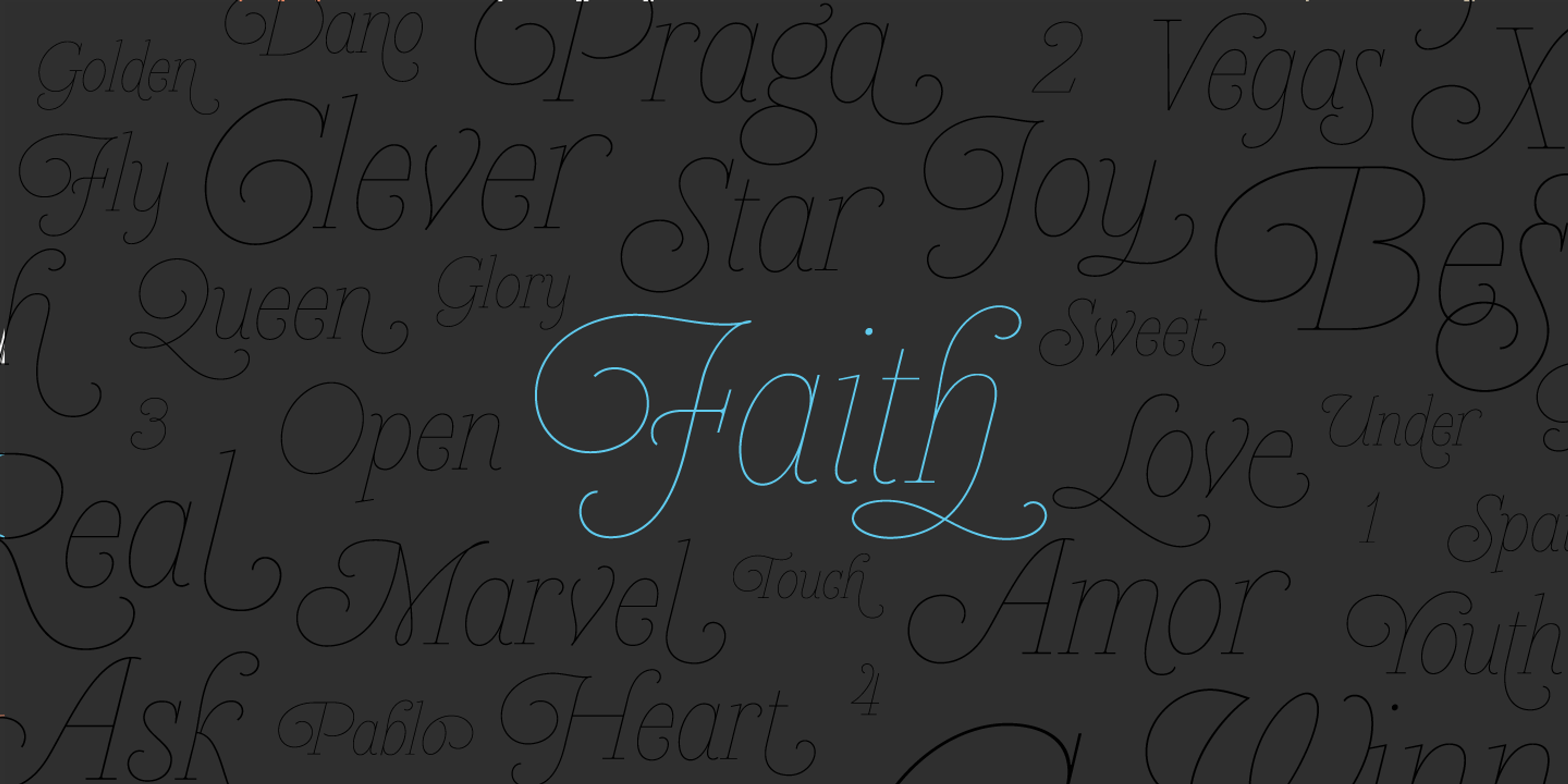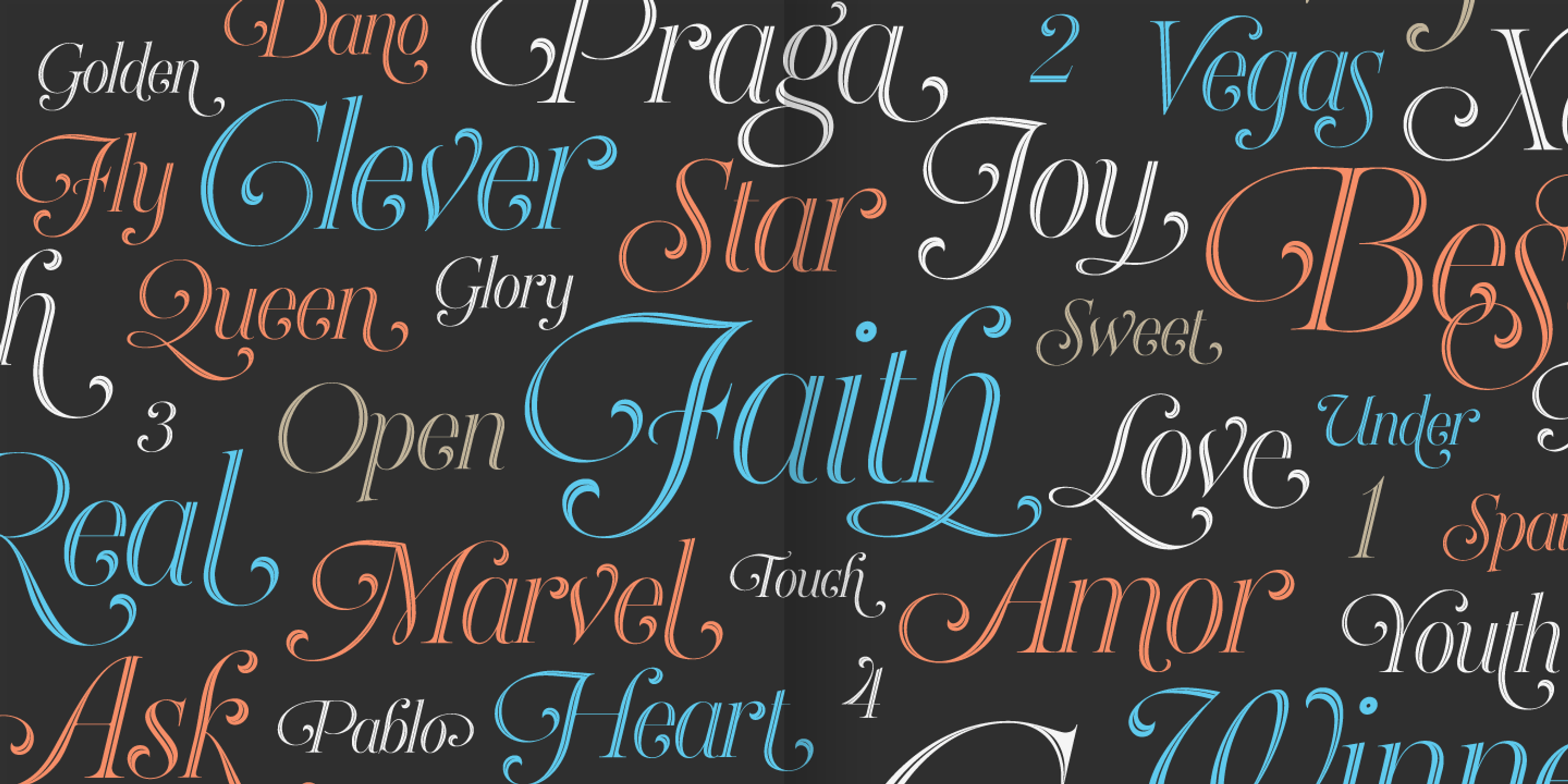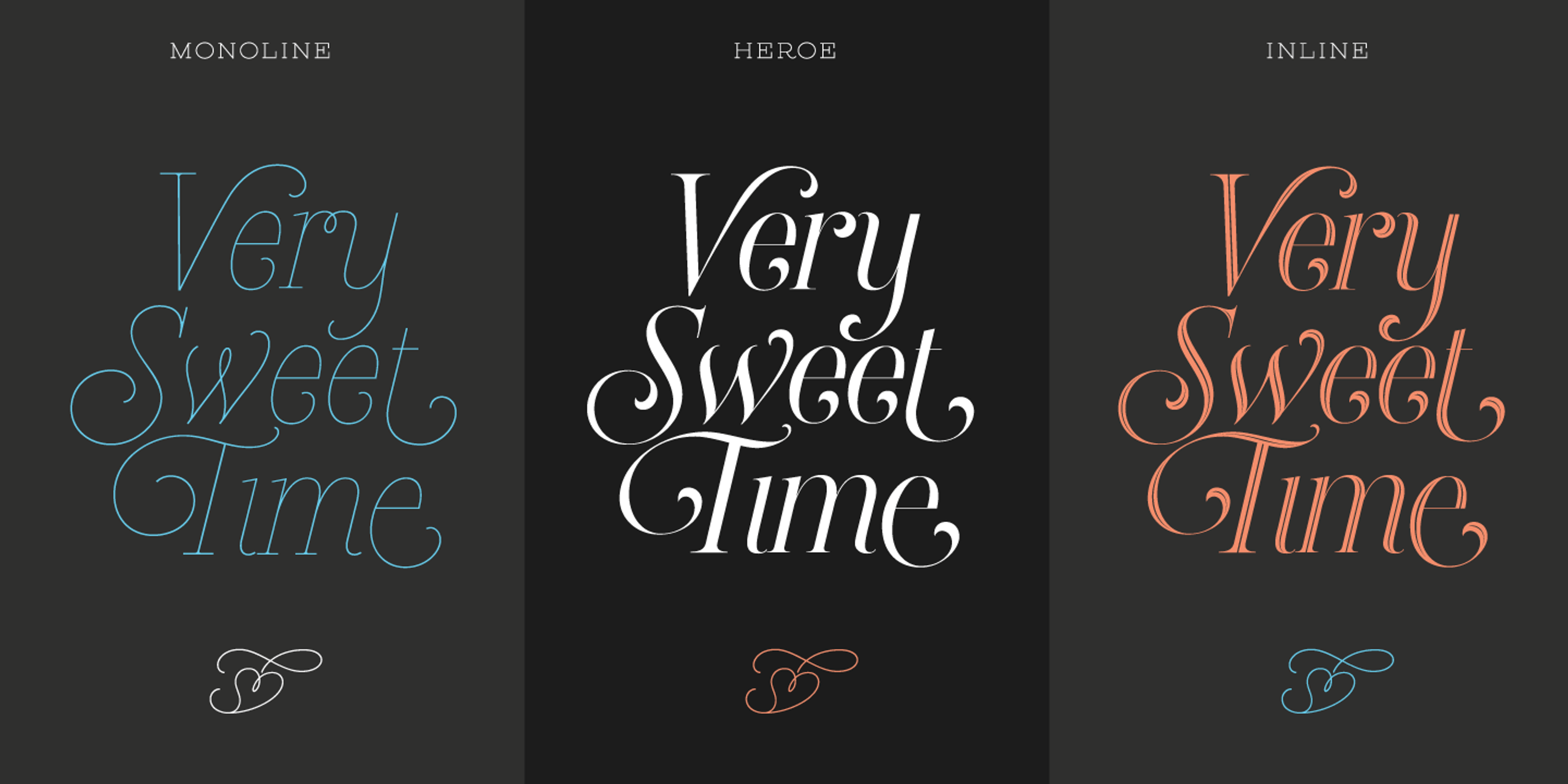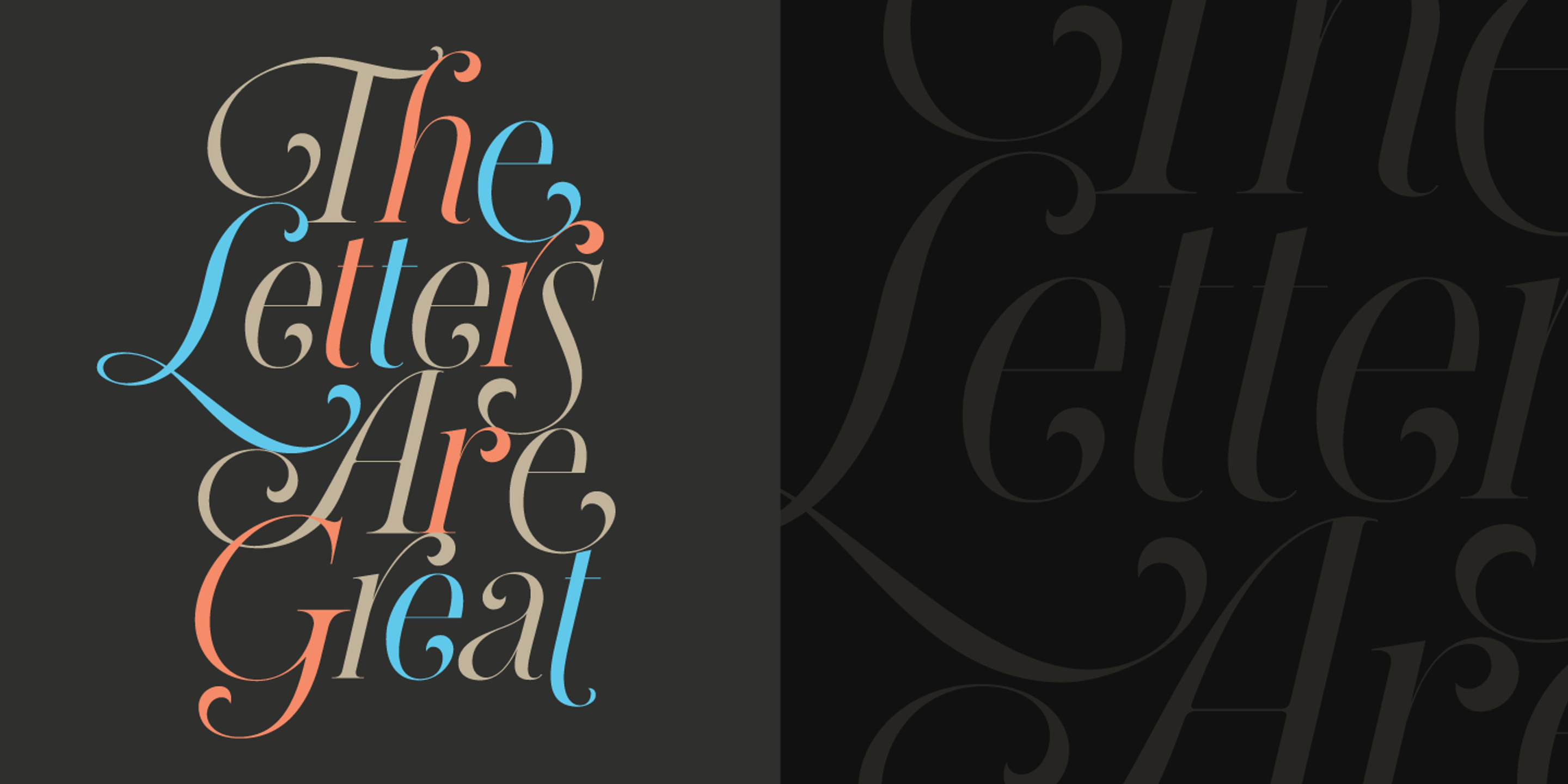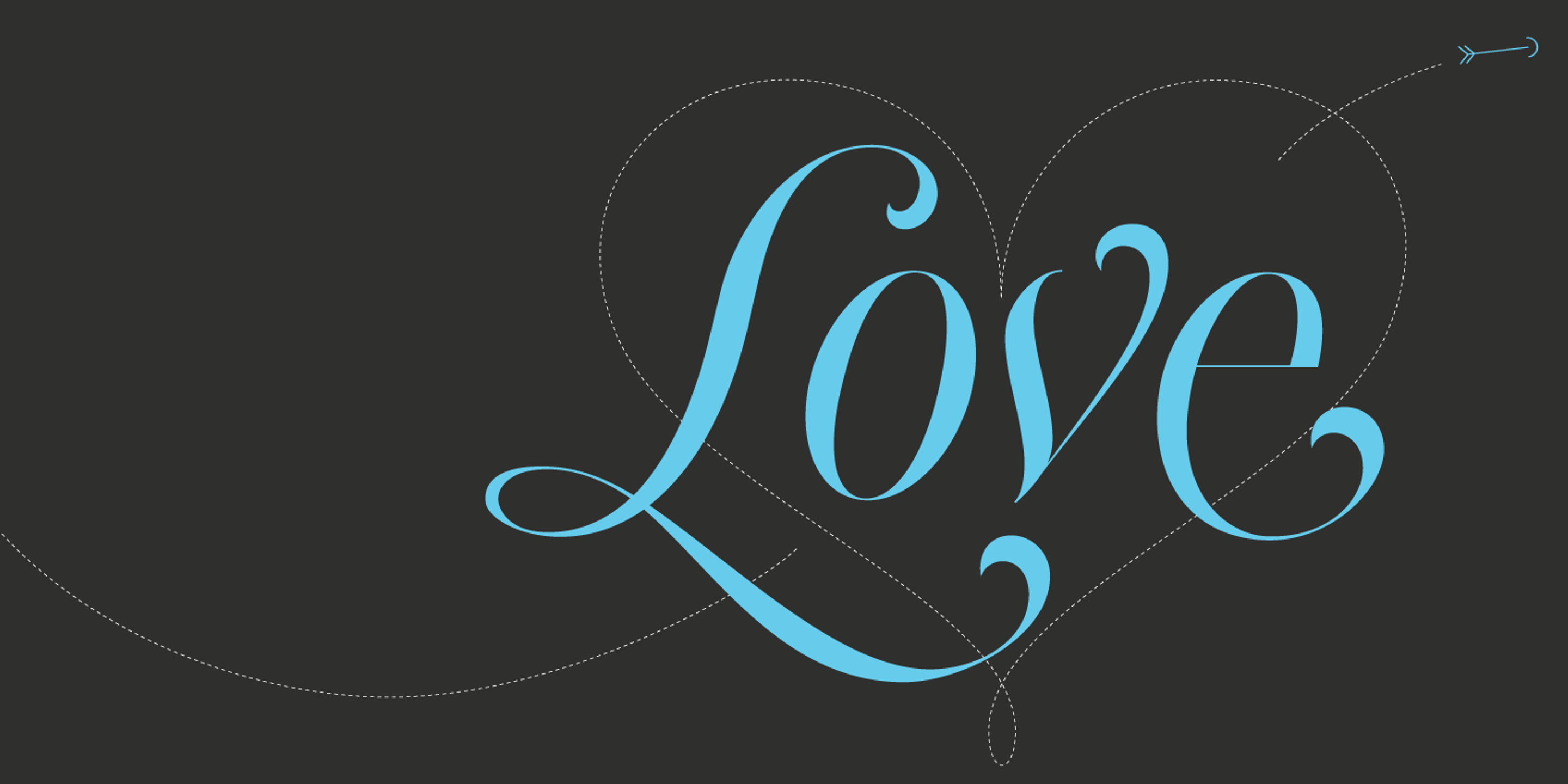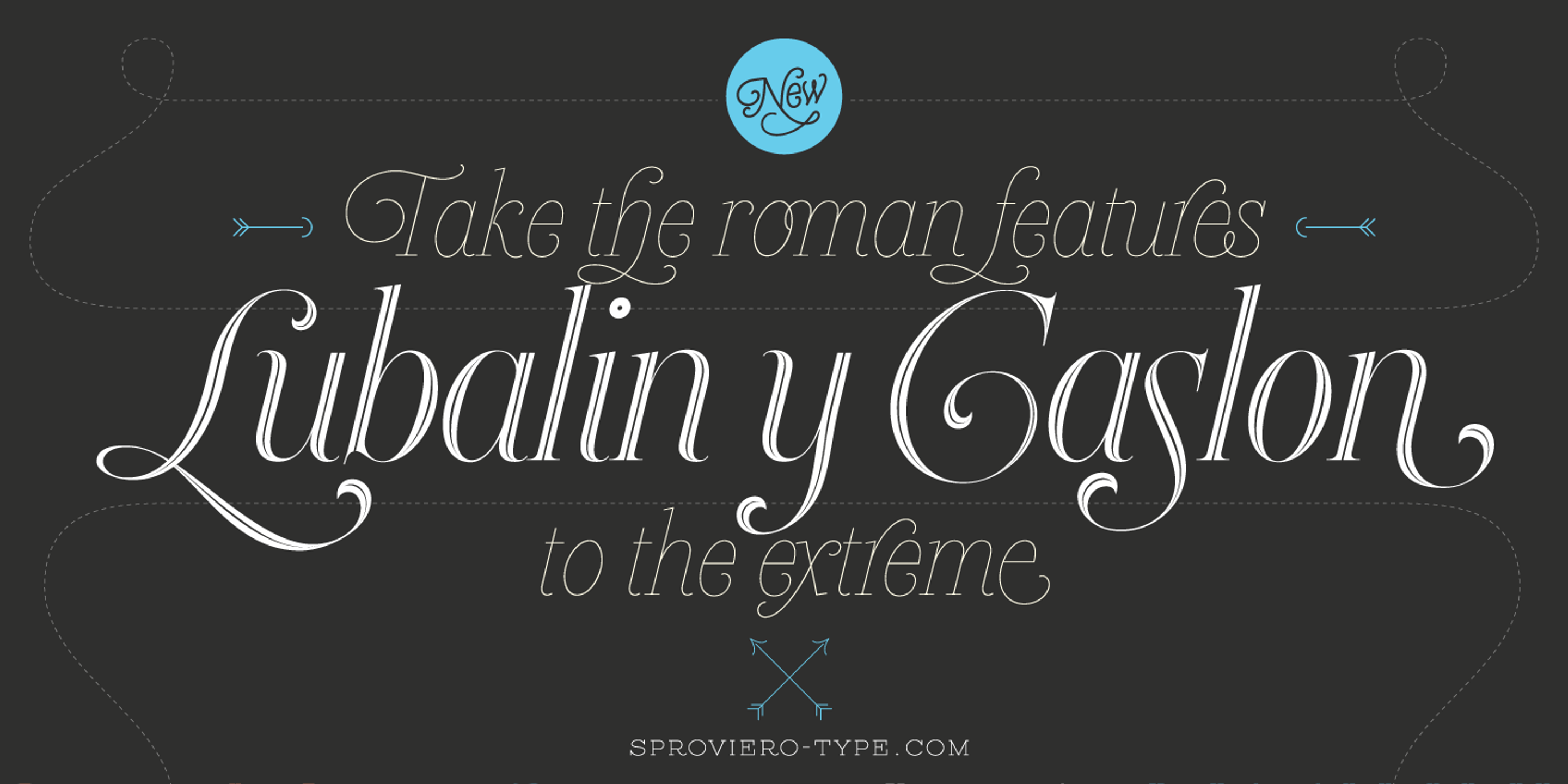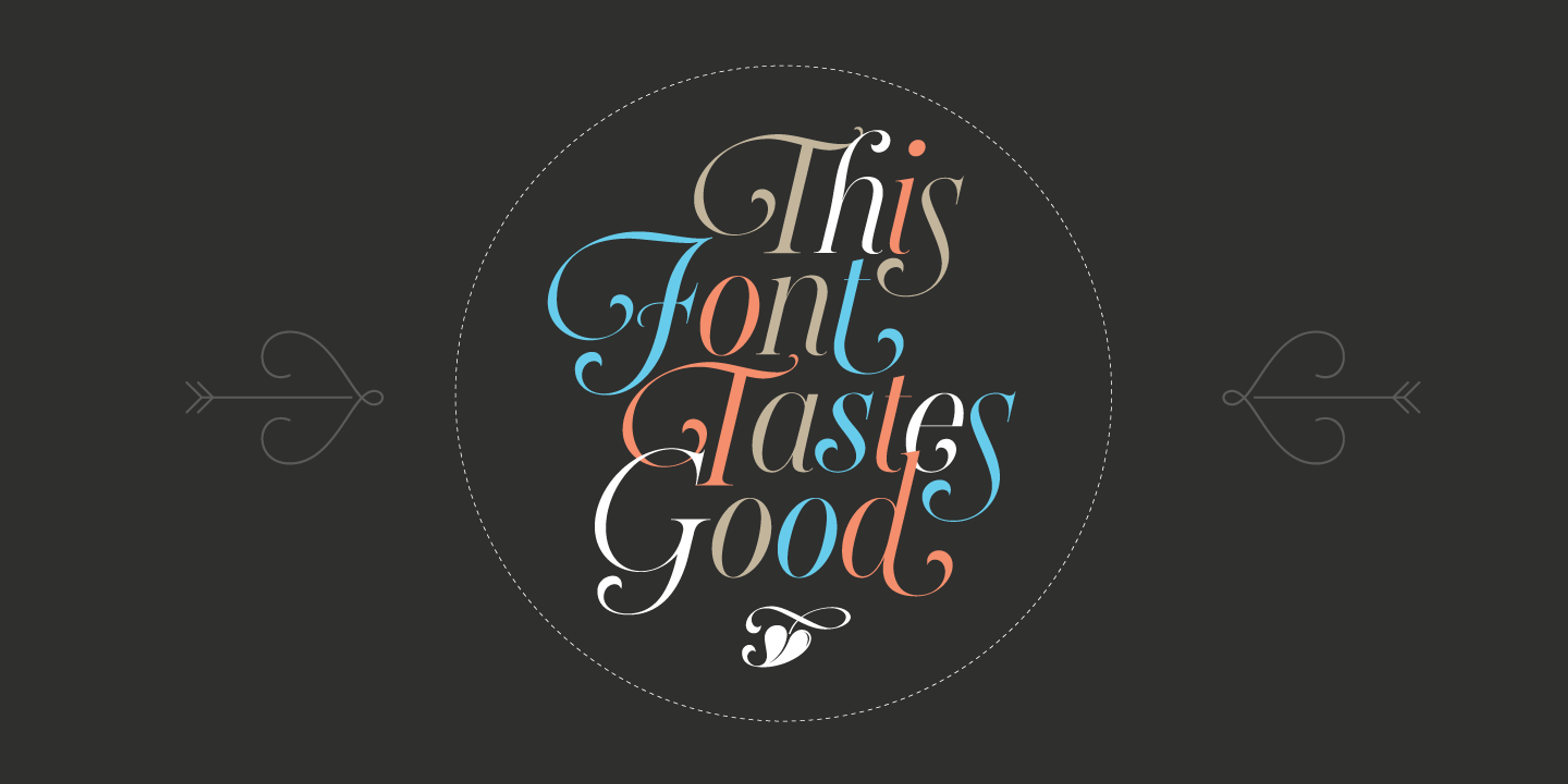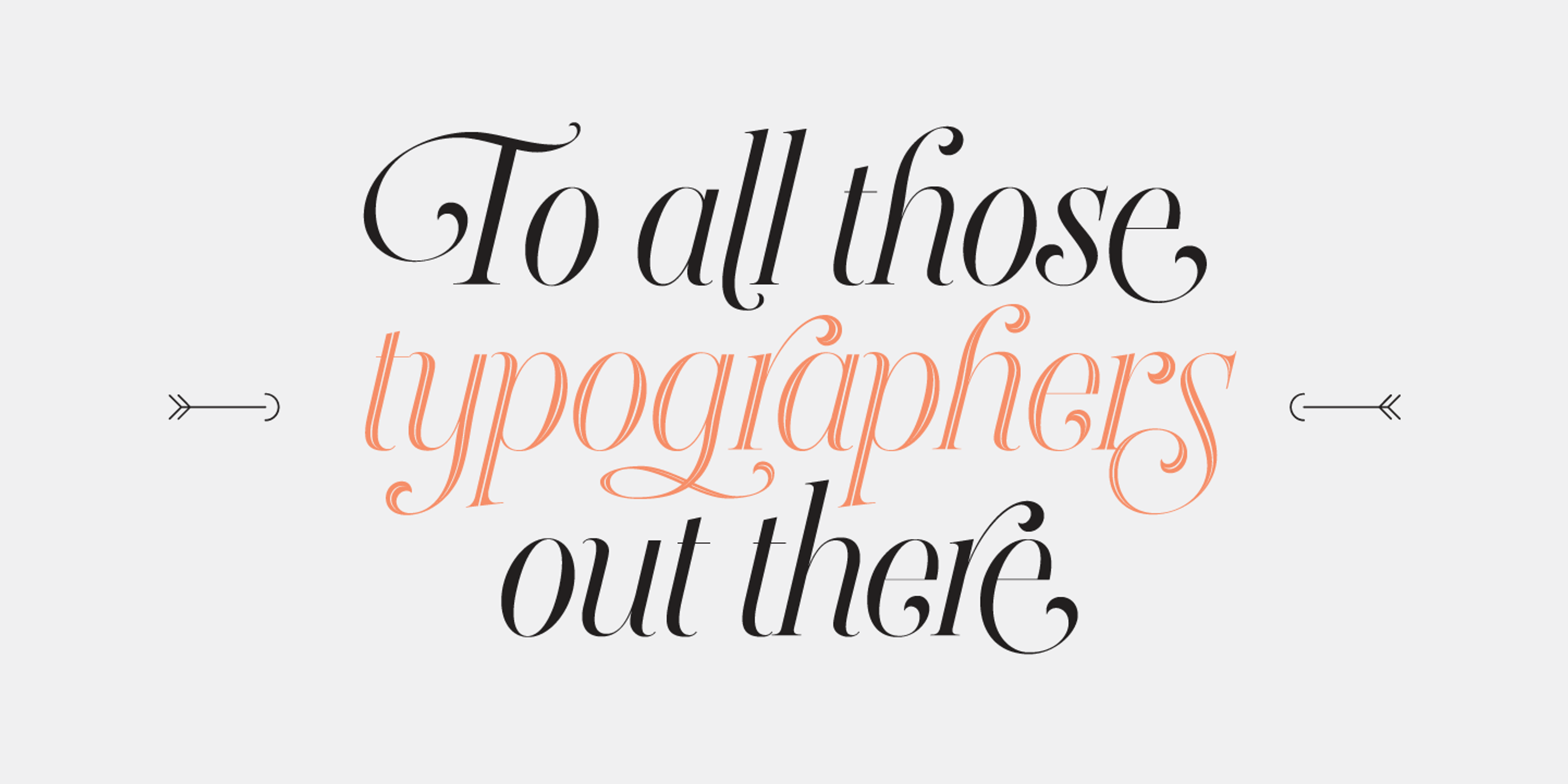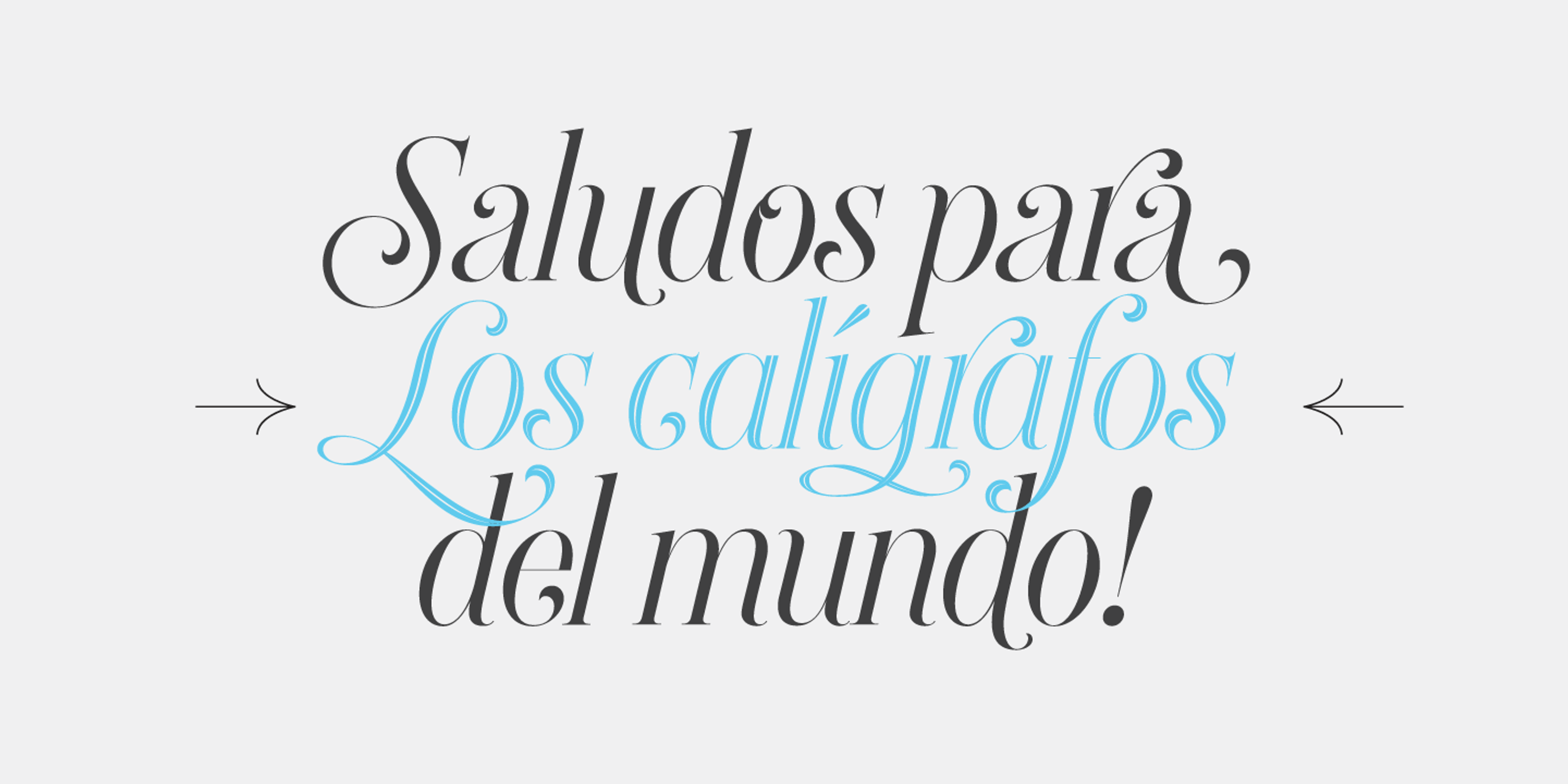
Heroe font by Sproviero Type — the word “Faith” in light blue, surrounded by many other words in a dark gray connected script, all italic.
Heroe font by Sproviero Type — a collage of words in an ornate, high-contrast italic serif, some with an inline style, in white, blue, and orange, including “Golden”, “Clever”, “Faith”, and “Love”
Heroe font by Sproviero Type — the words “Very Sweet Time” in three different connected script styles, with a decorative heart-shaped flourish below each example
Heroe font by Sproviero Type — the words “The Letters Are Great” in a multi-colored, high-contrast italic serif, with a faint background repeat of the same words.
Heroe font by Sproviero Type — the word “Love” in a high-contrast italic script, with a dotted-line heart shape and arrow motif
Heroe font by Sproviero Type — the words “New”, “Take the roman features”, “Lubalin y Caslon”, “to the extreme”, and “SPROVIERO-TYPE.COM” in a mix of upright and italic serif styles, with the words “Lubalin y Caslon” in a striking inline style.
Heroe font by Sproviero Type — the words “This Font Tastes Good” in a high-contrast italic serif, with a small leaf icon below, all within a dotted circle and flanked by decorative arrows.
Heroe font by Sproviero Type — the words “To all those” and “out there” in black italic serif, and “typographers” in peach-colored inline italic serif, flanked by two small arrows pointing inward
Heroe font by Sproviero Type — the words “Saludos para” and “del mundo!” in dark gray italic serif lettering, and “Los calígrafos” in light blue inline italic serif lettering, with left and right arrows pointing to the blue text.
Heroe is a stylized italic full of surprising elegance and sharp visual drama. With delicate hairlines, unique ball terminals, and poetic curves, it takes some aspects of the classic Roman model and pushes them into expressive territory. The font family includes Regular, Monoline Big, Monoline Small, a striking Inline style, and Fleurons! Heroe is perfect for fashion magazines, perfume packaging, wedding invitations, or any luxury brand calling for sophistication with flair.